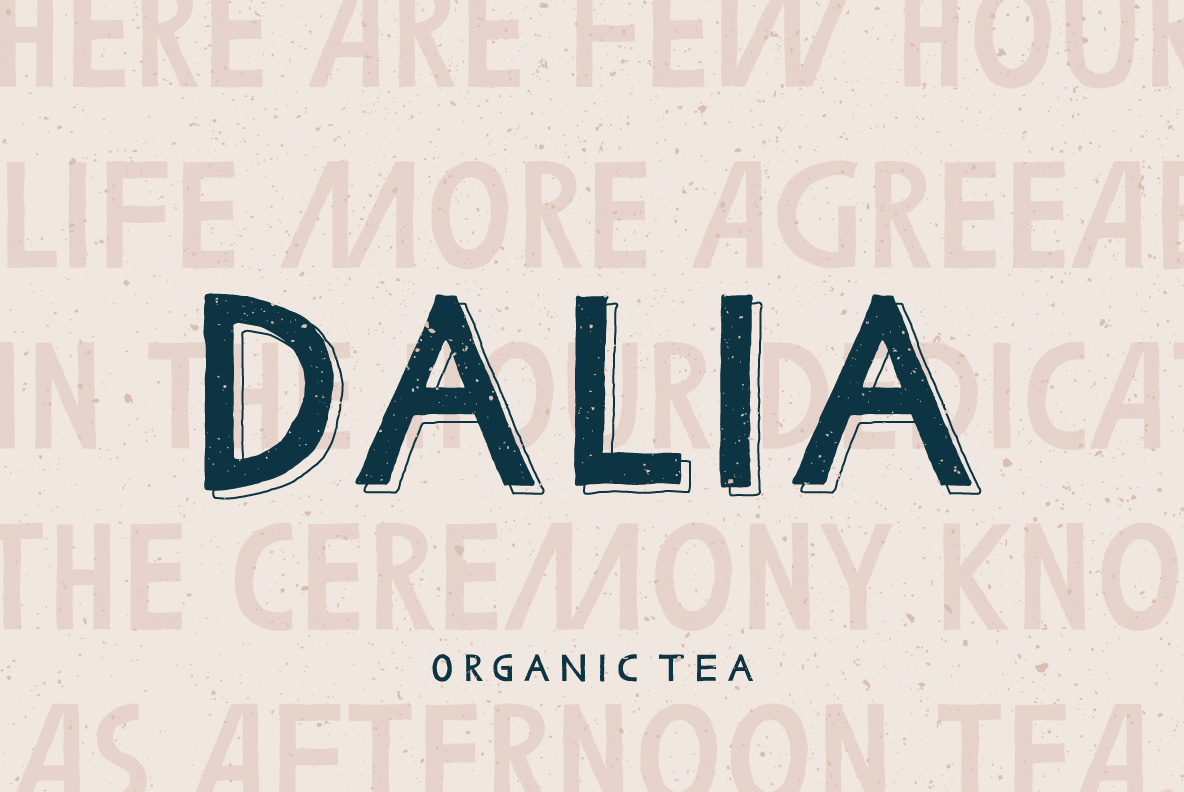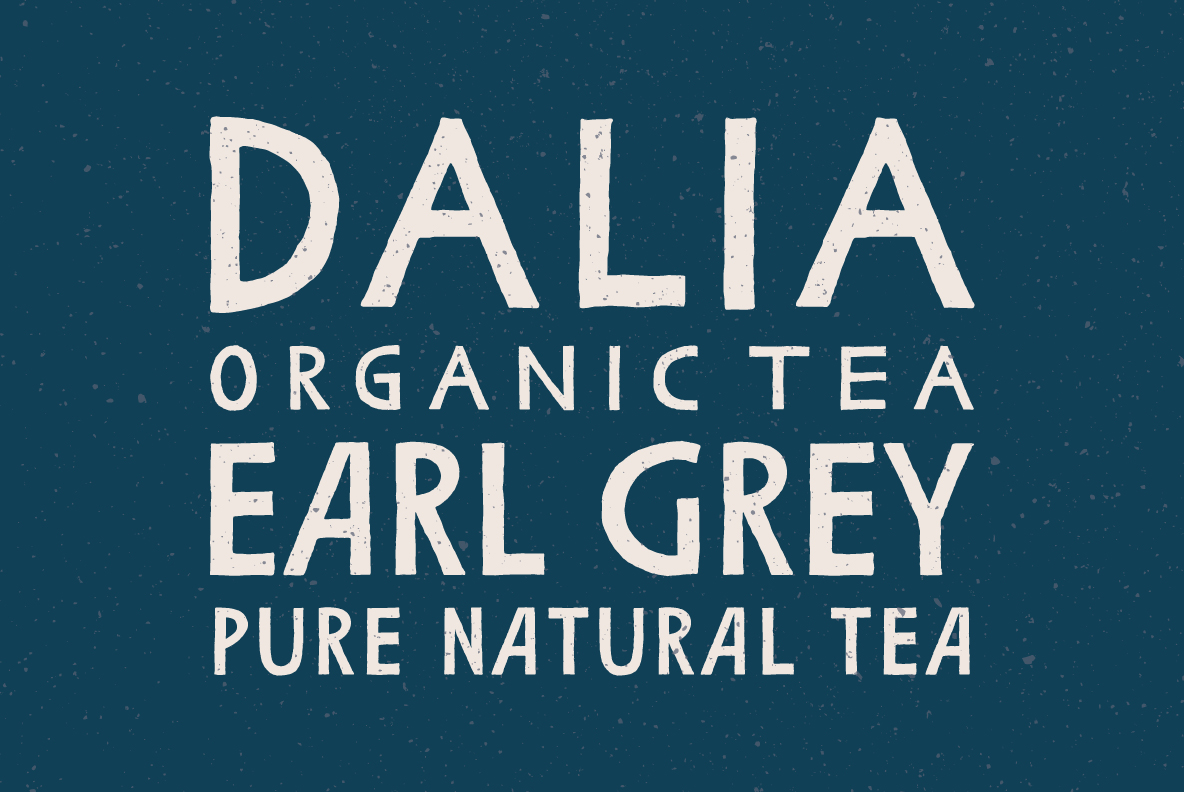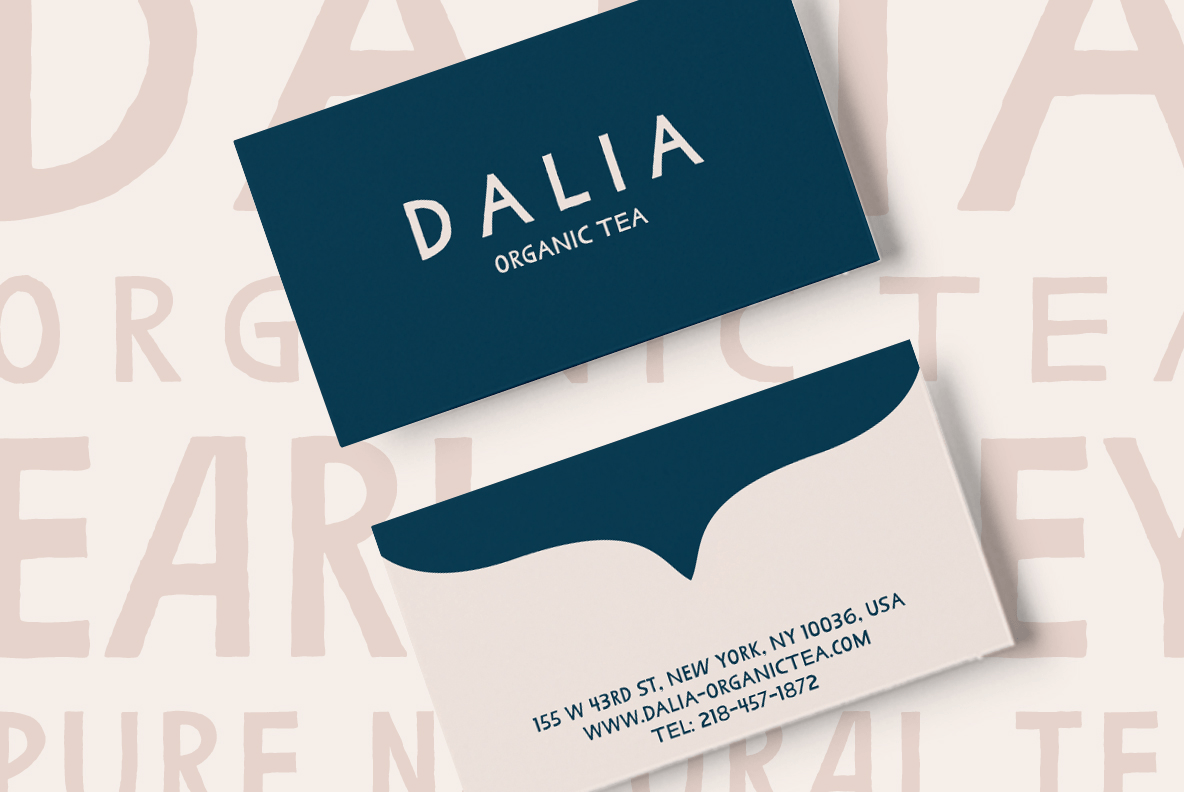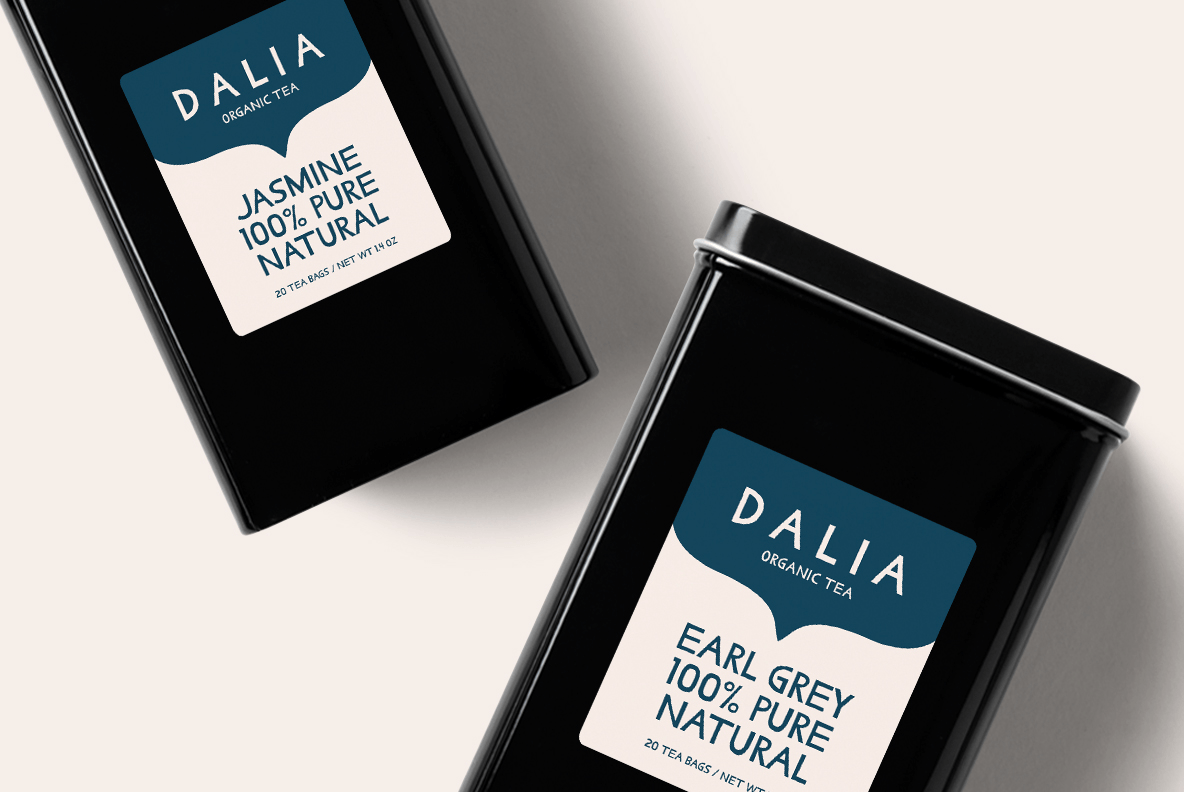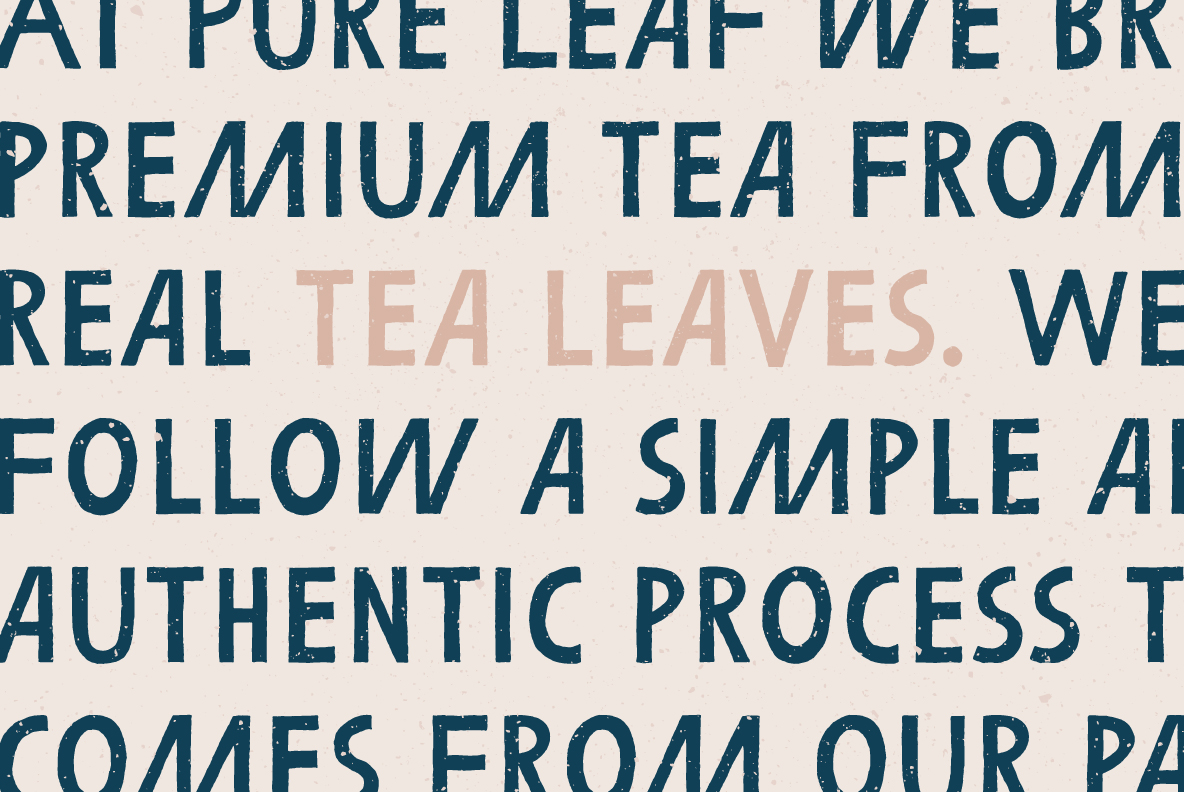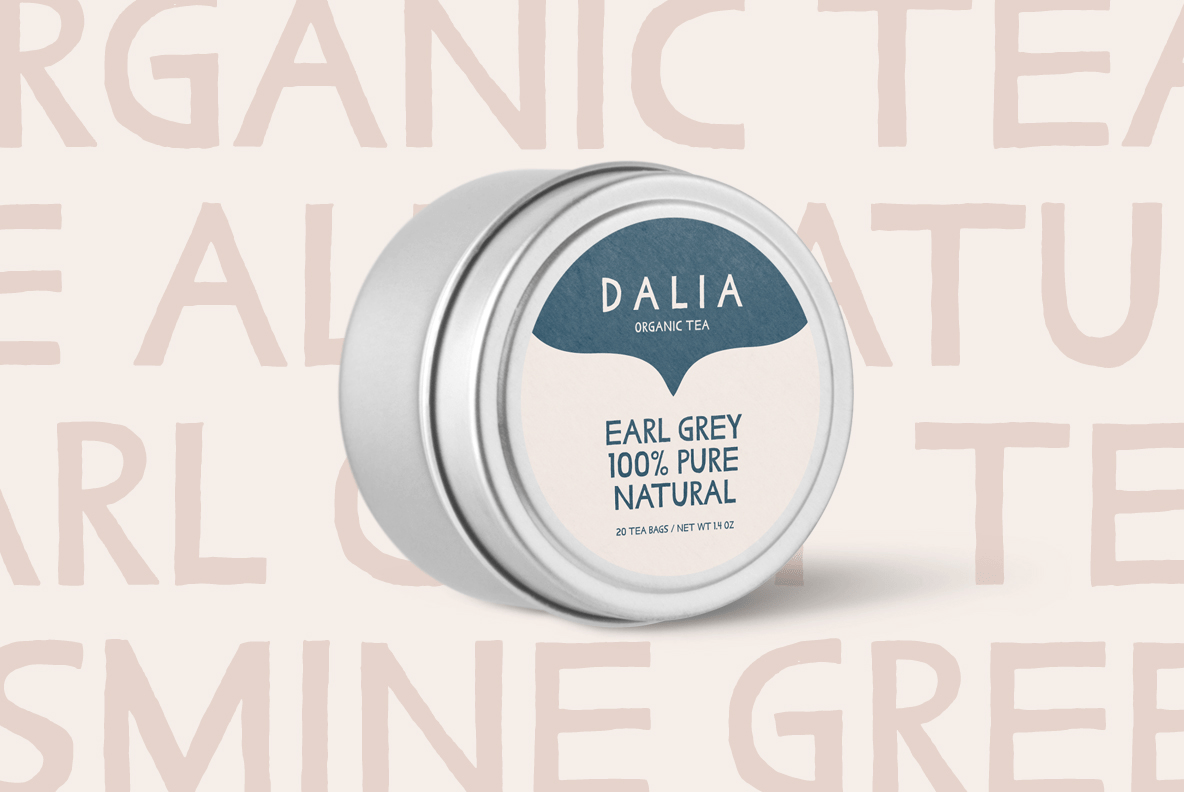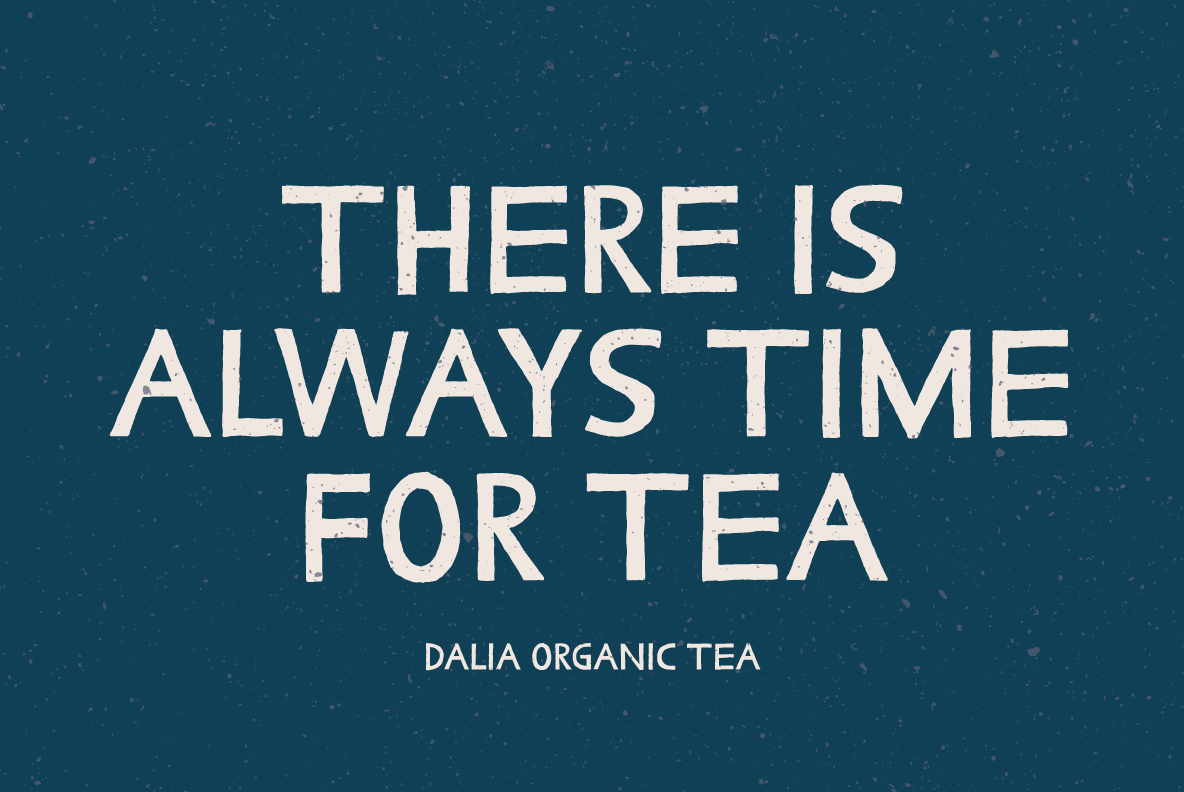
YWFT Tapscott
About YWFT Tapscott
YWFT Tapscott is an Opentype font named for Horace Tapscott, the great jazz pianist, composer and founder of the Pan Afrikan Peoples Arkestra. The font was inspired by Tapscott\’s signature sound, with a tip of the Malo hat to the aesthetics of other 60s/70s…